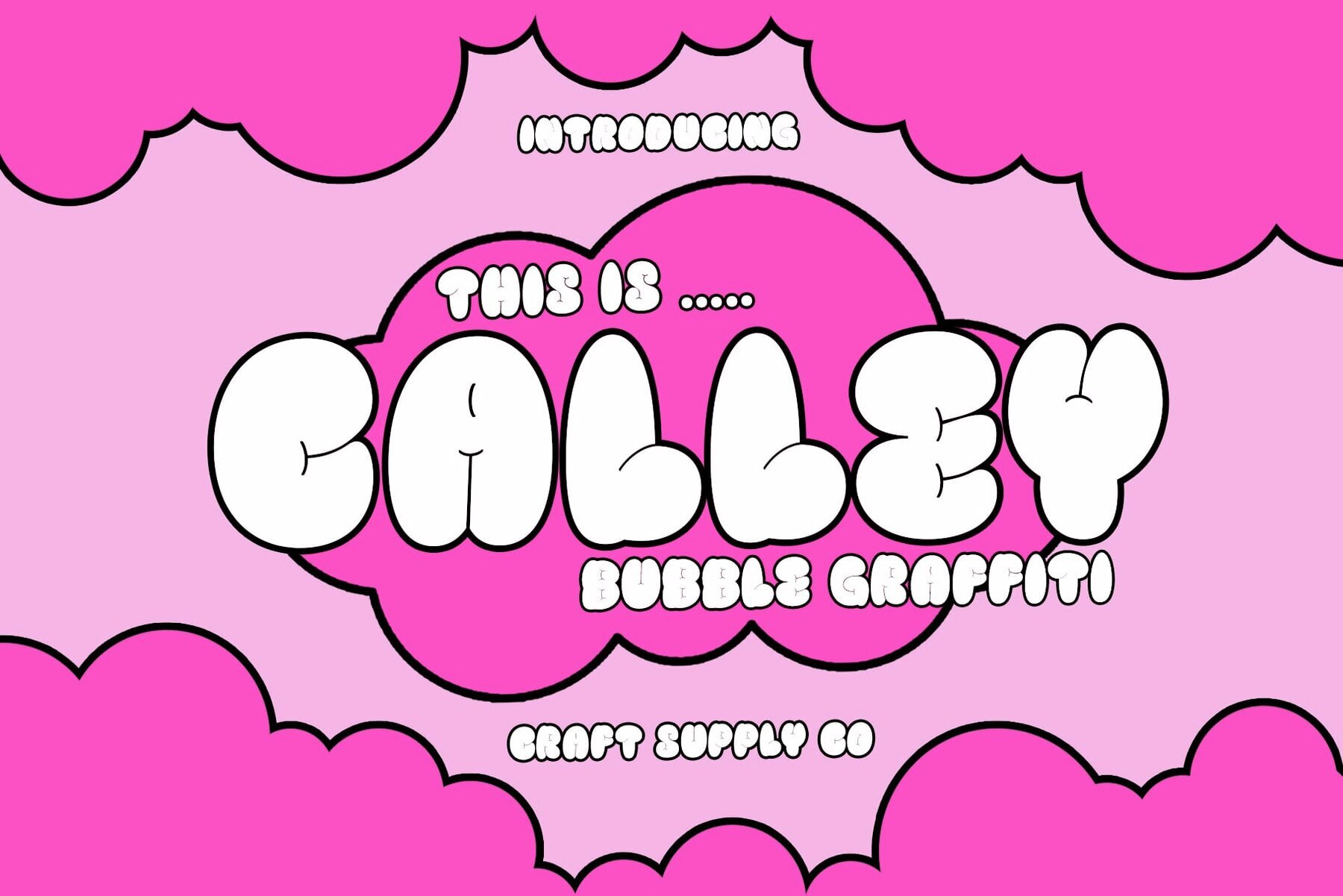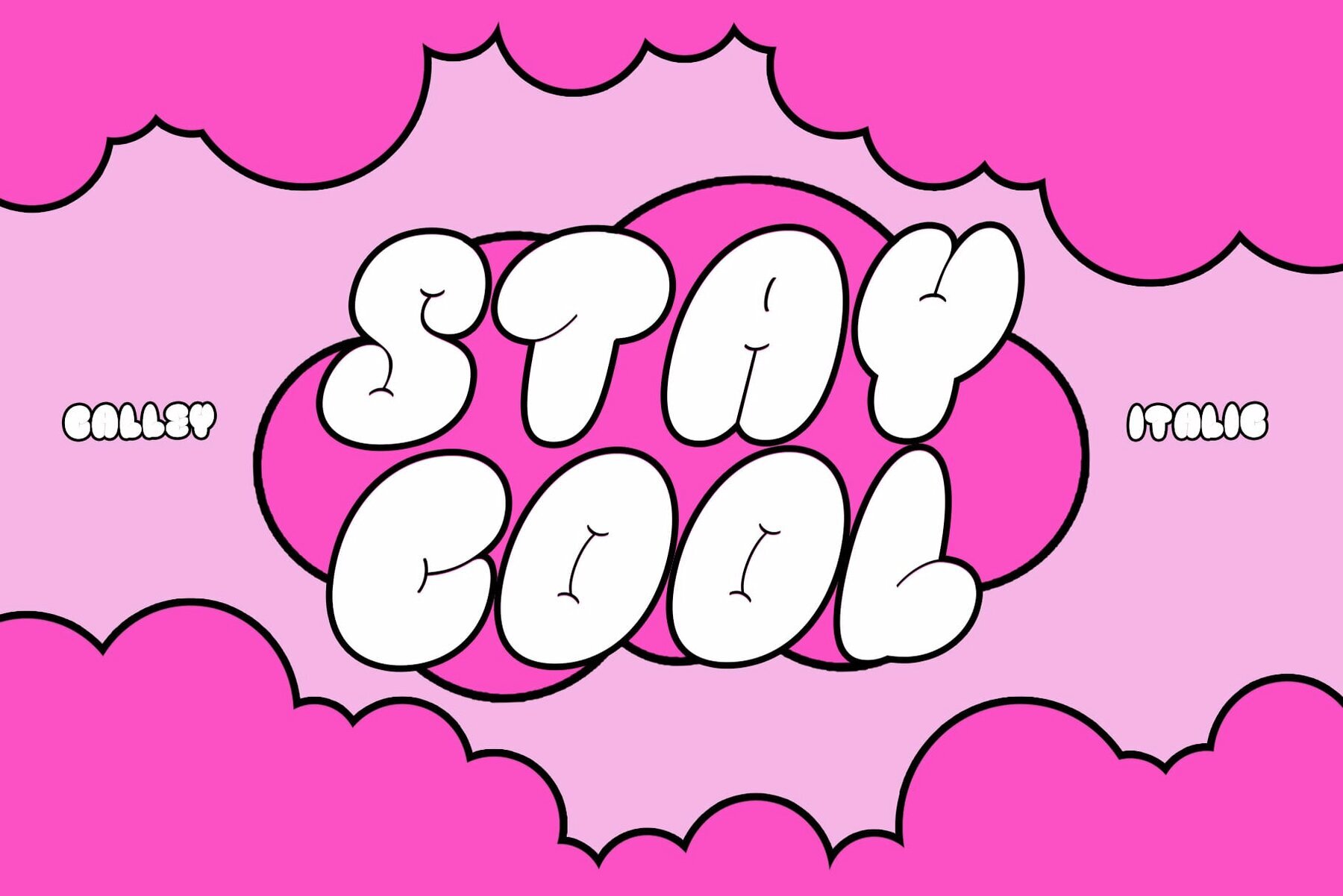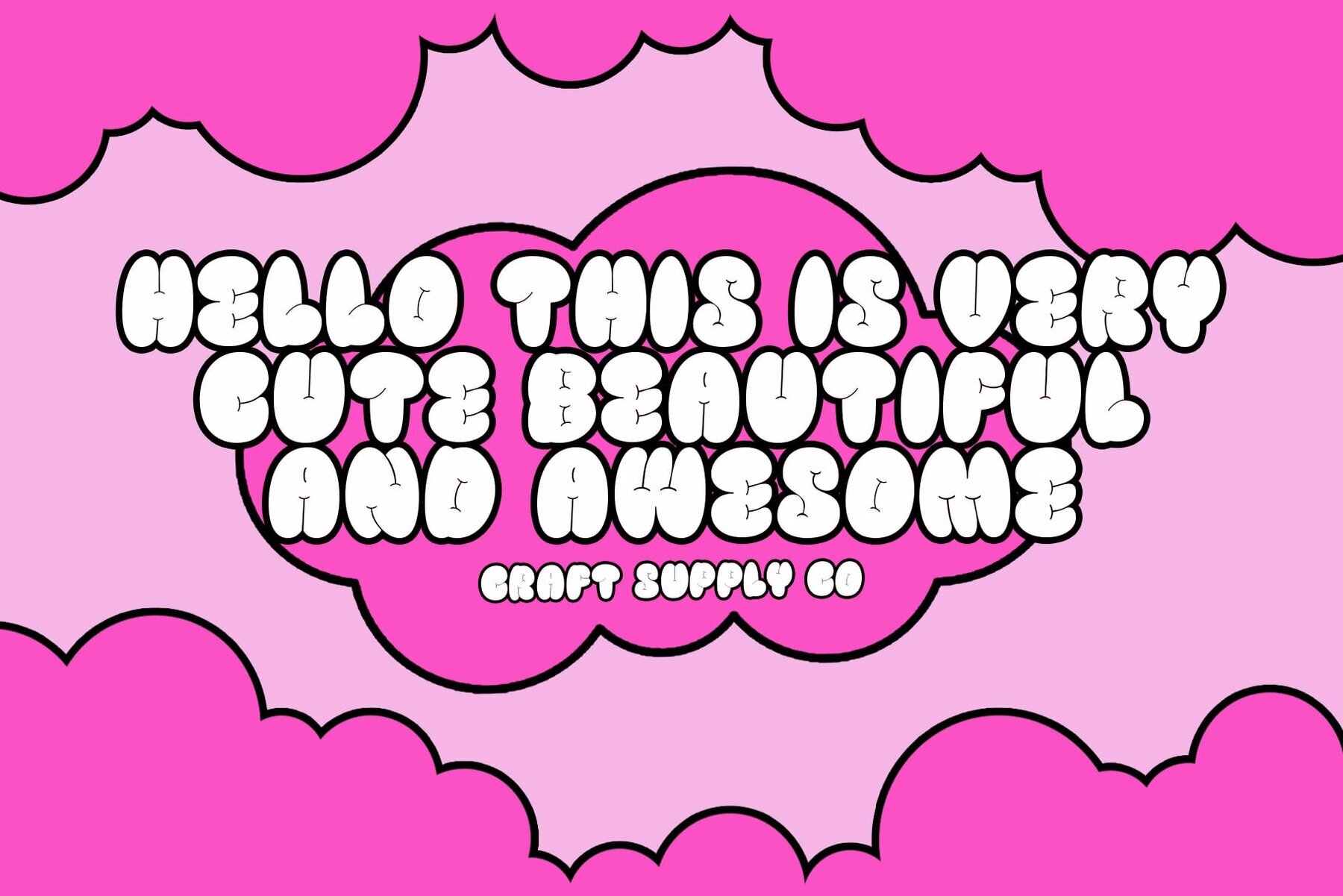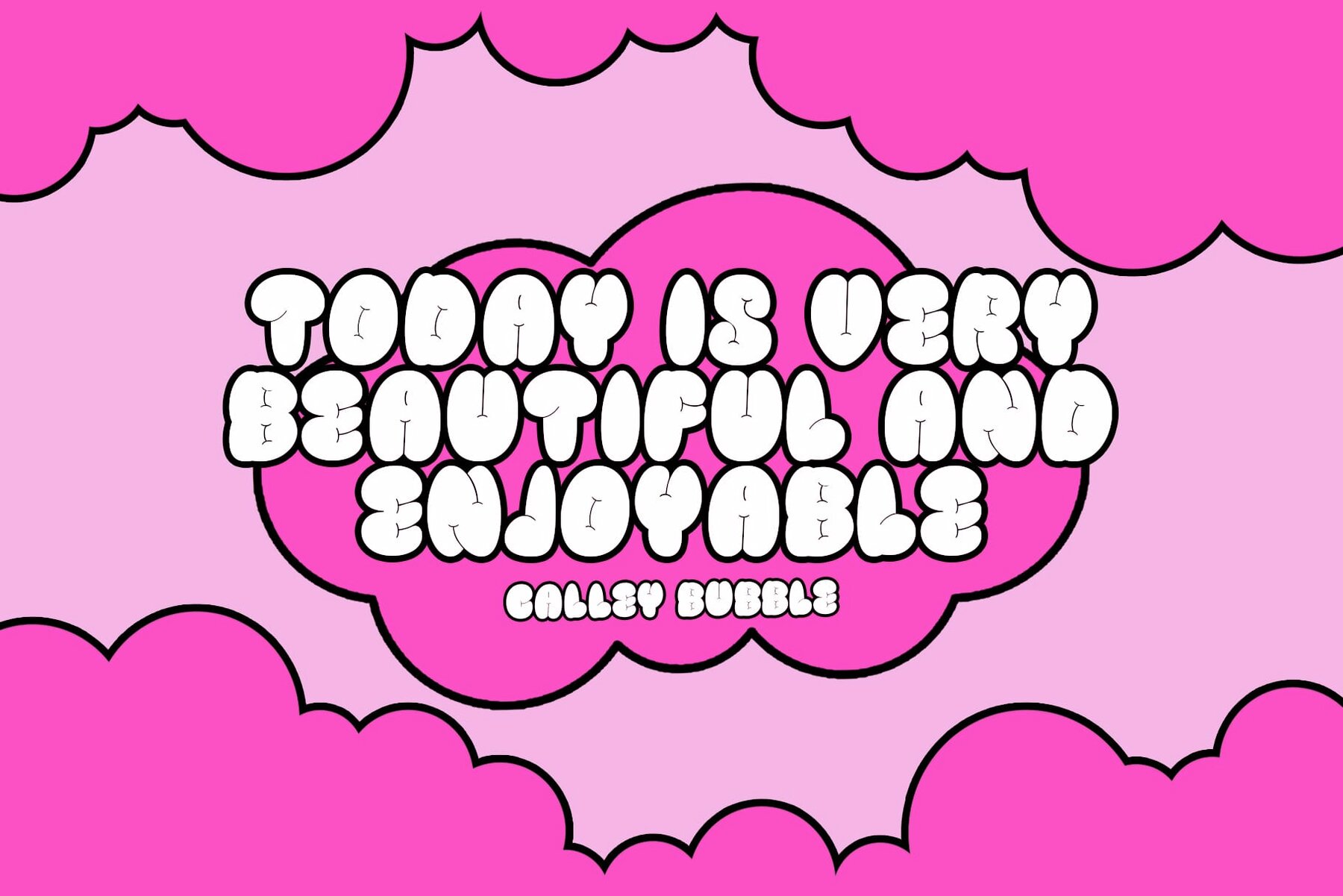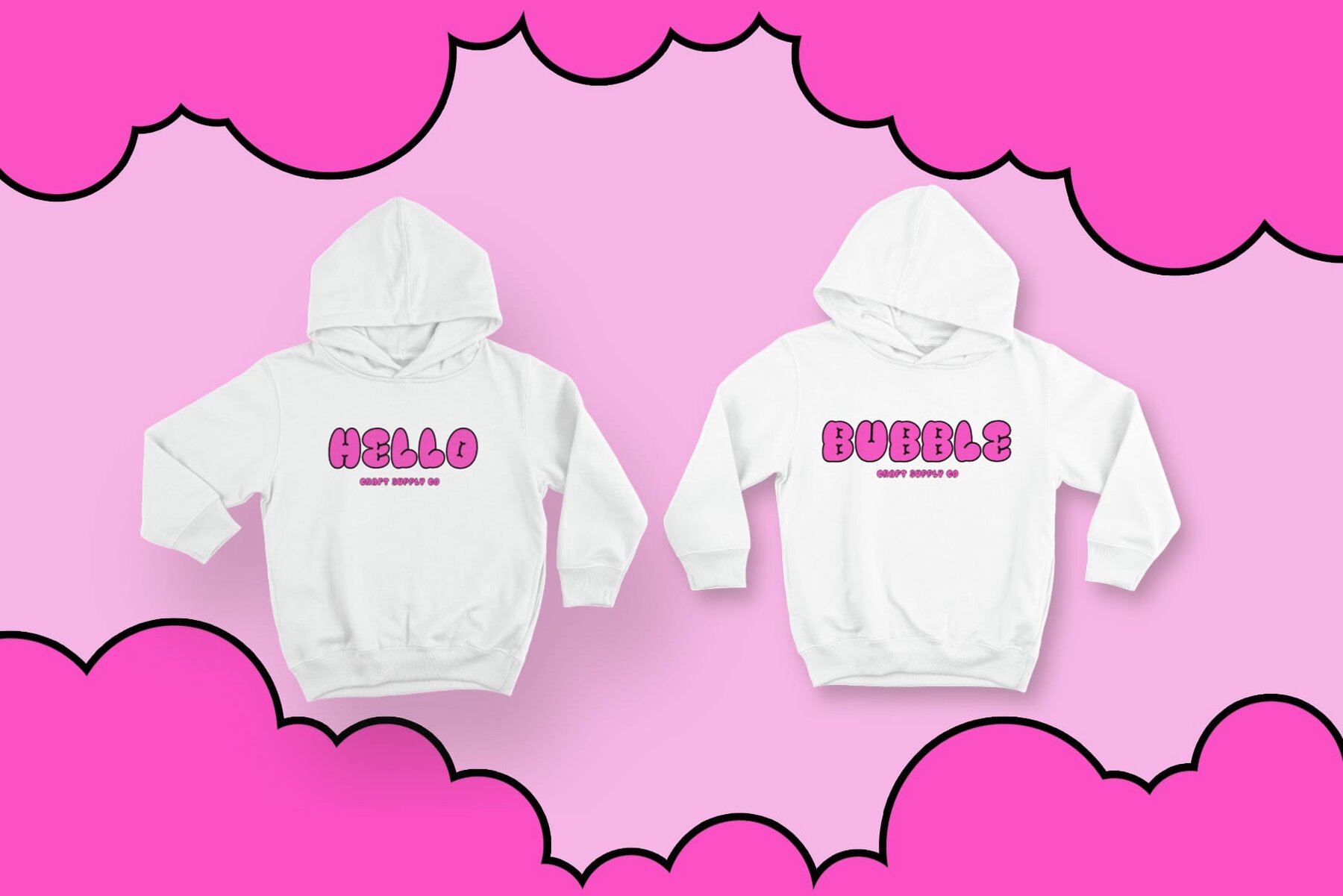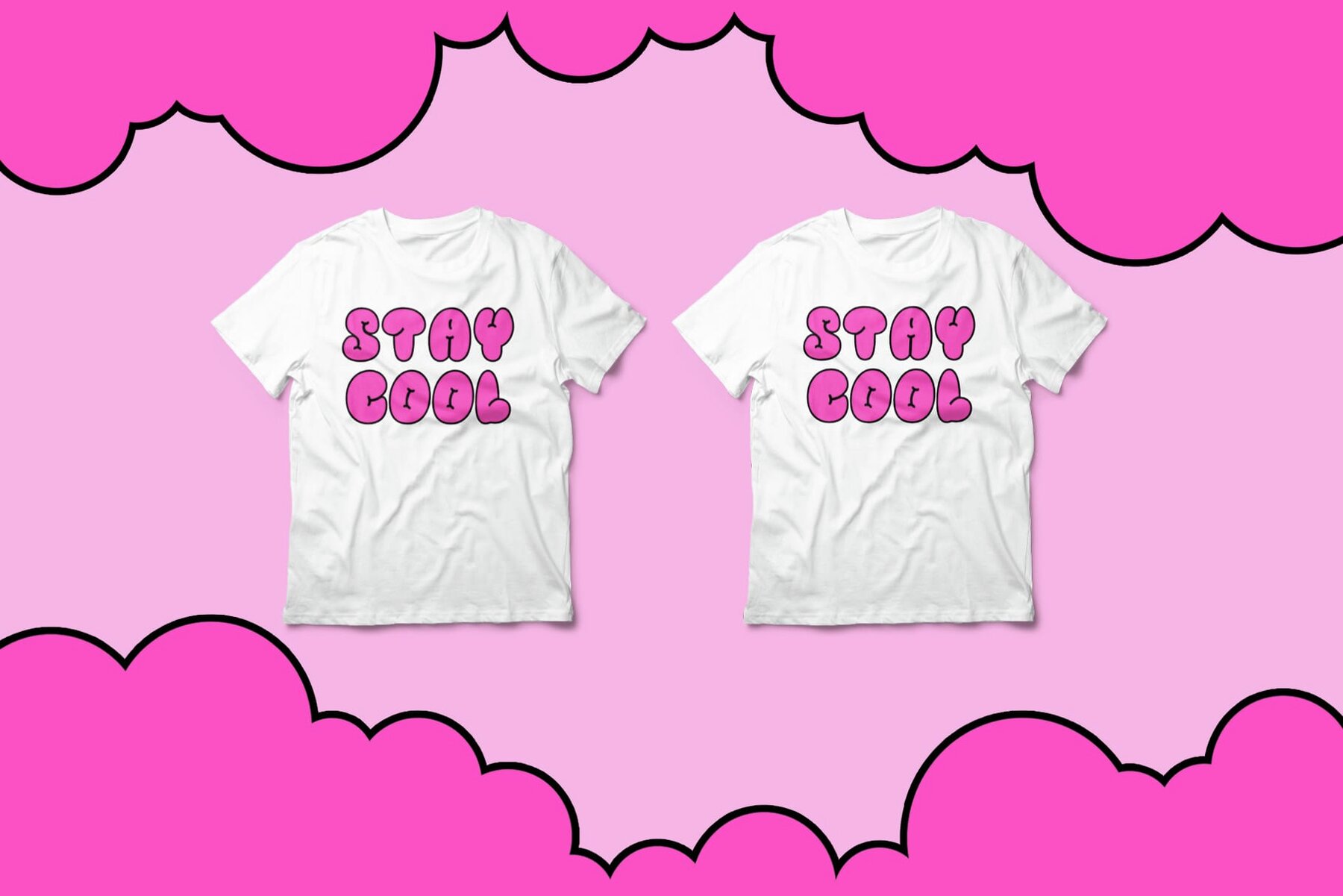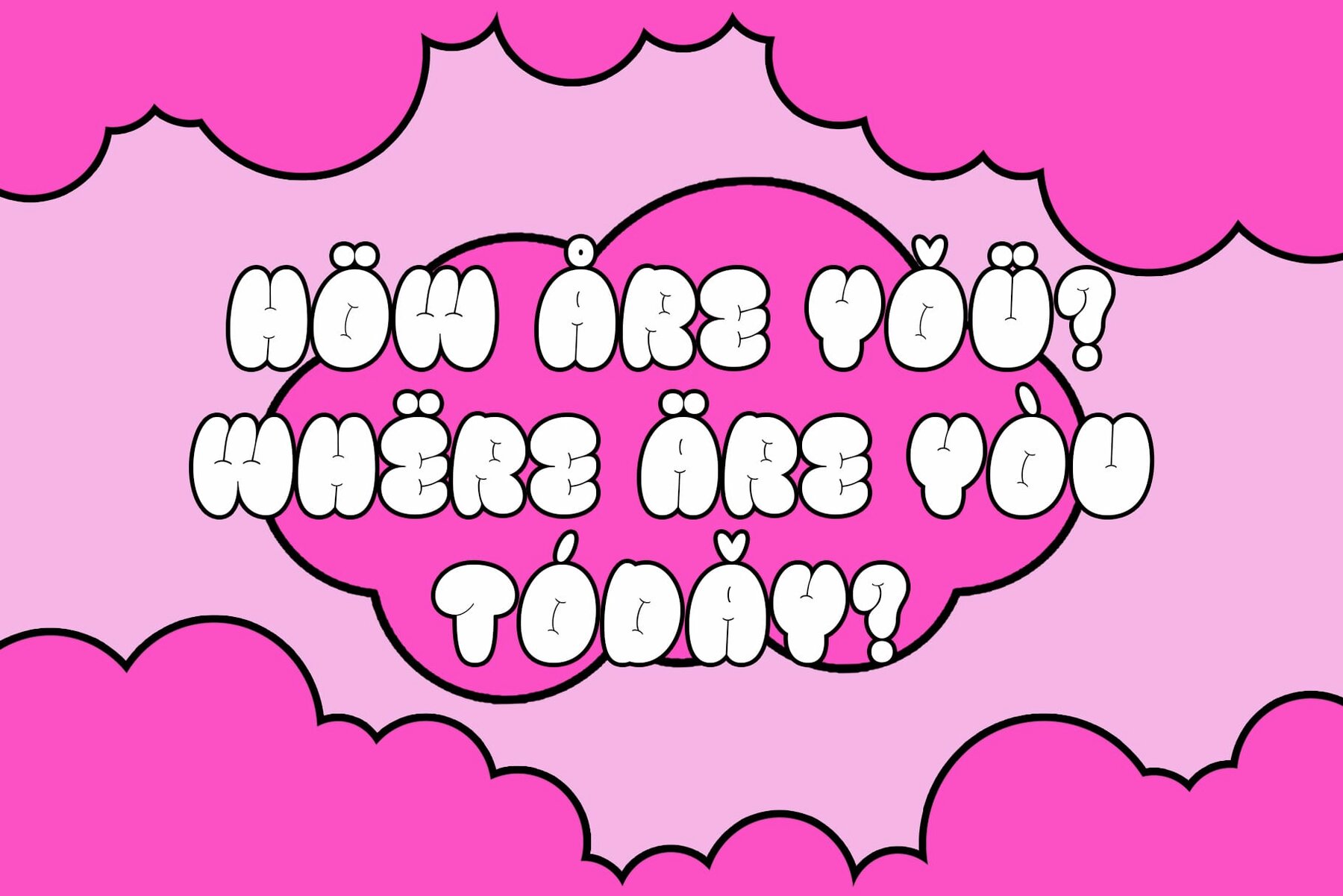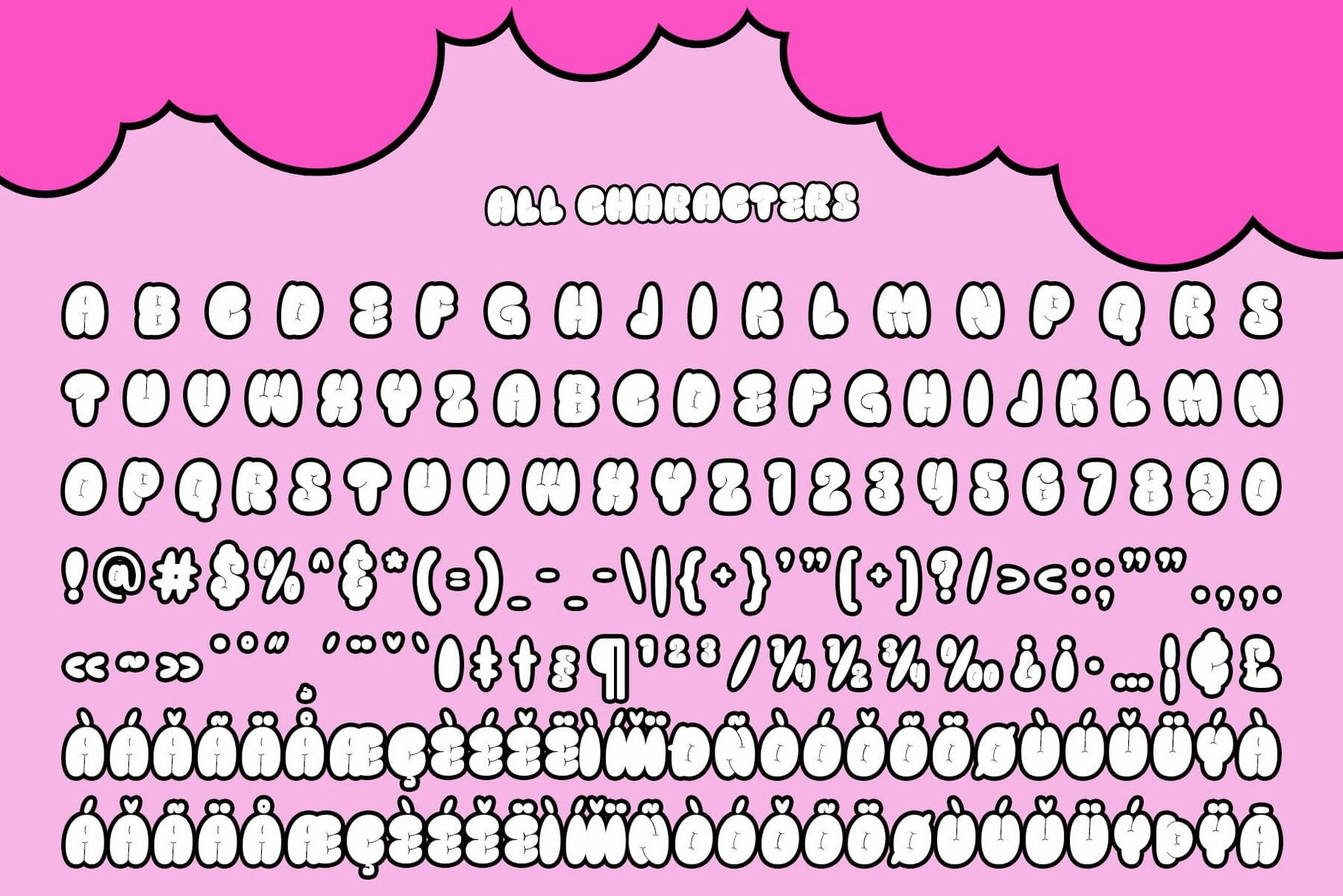
Calley Font
Calley, crafted by Craft Supply Co., offers a unique typographic experience inspired by the buoyancy and playful nature of balloons. This display font captures the essence of carefree outdoor activities with a distinctive nod to graffiti style, making it perfect for creative projects that demand a dash of fun. This fun and bubbly font channels the light-hearted simplicity of balloons. Each character is designed to embody a round, inflated feel, which mirrors the shape and gentle curves of a balloon. This design choice not only enhances the readability of the font but also contributes to its overall playful tone. Calley incorporates elements from graffiti art, infusing a vibrant, urban edge into its design. This influence is evident in the font’s expressive lines and dynamic forms, which echo the spontaneous and bold nature of street art. The font’s versatility makes it an excellent choice for everything from streetwear branding to event posters. The font’s lively yet readable style makes it suitable for a wide range of applications. It excels in contexts that require a touch of whimsy and informality, such as children’s book covers, festive banners, and themed promotional materials.Calley: Playful and Buoyant Graffiti Display Font Inspired by Balloons
Inspiration and Design
Graffiti Influence
Usability and Applications